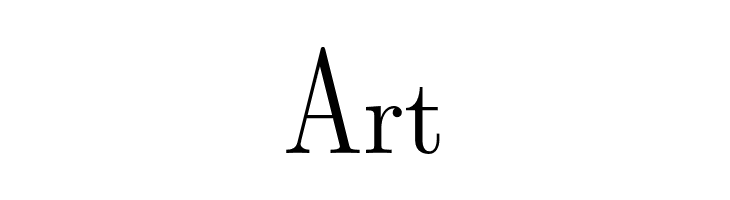
A classic serif font with strong, authoritative characters and sharp serifs.
A bold, classic serif font with strong strokes and elegant serifs.
A classic, elegant serif font with a slight slant and medium contrast.
A modern sans-serif font with an oblique style, offering clarity and dynamic appeal.
A modern, oblique sans-serif font with a clean and professional look.
A classic serif font with high contrast and elegant strokes.
A modern, sans-serif typeface with clean lines and balanced proportions.
A monospaced slab serif font with uniform width and consistent stroke weight.
A clean, modern sans-serif font with consistent stroke width and excellent legibility.